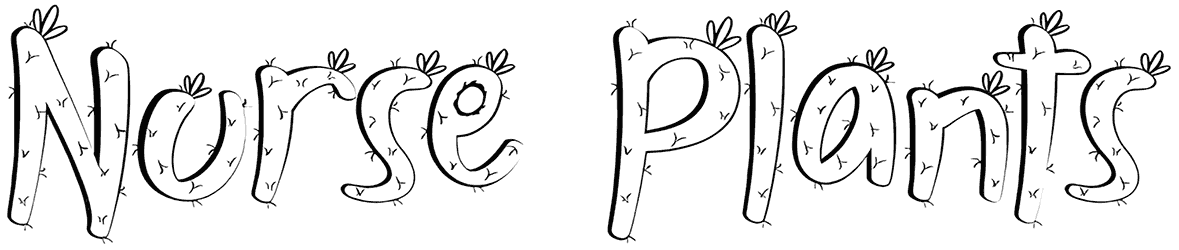
Nurse Plants Font
The cuteness and uniqueness of the fancy decorative font Nurse Plants make up for the absence of numerical letters, making it impossible to resist. Logos, flyers, and poster design are just a few of the many possible uses for this font with its 2 styles.